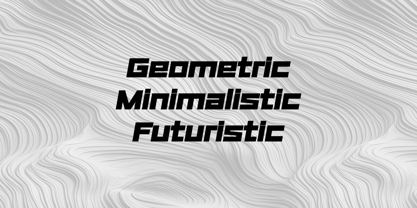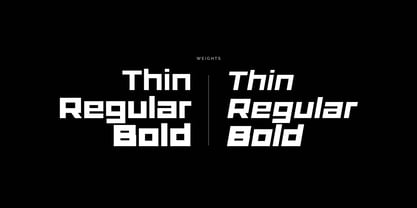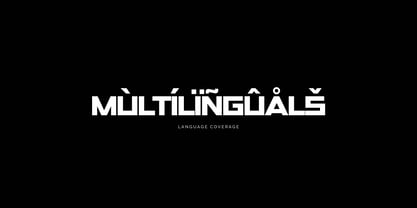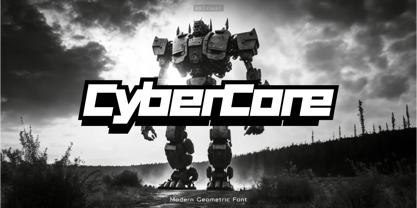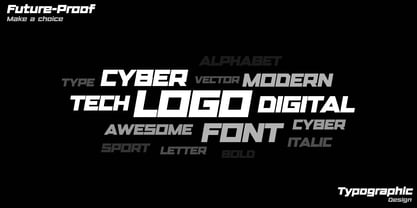
Cyber Core
by Artyway
The Cyber Core Font Family was designed by Yehor Lisnyi and published by Artyway. Cyber Core contains 6 styles and family package options.
Futuristic Geometric Display Font
CyberCore is a bold and square-shaped geometric font inspired by futuristic technology, robotics, and cyber aesthetics. With sharp angles, monospaced rhythm, and clean proportions, this typeface delivers a modern and minimalistic vibe, perfect for the digital age.
Whether you're designing a logo for a tech brand or need bold display typography for a sci-fi interface, CyberCoreoffers a versatile and impactful option that commands attention.
✨ Ideal Uses:
• Tech and startup logos
• UI/UX titles and interfaces
• Sci-fi movie posters and covers
• Esports branding
• Futuristic product packaging
• Game typography and HUDs
• 3 Font Weights: Thin, Regular, Bold
• Upright & Italic styles
• Full Uppercase & Lowercase
• Numbers & Symbols
• Extended punctuation set
• Multilingual support (Latin-based languages)
Designers: Yehor Lisnyi
Publisher: Artyway
Foundry: Artyway
Design Owner: Artyway